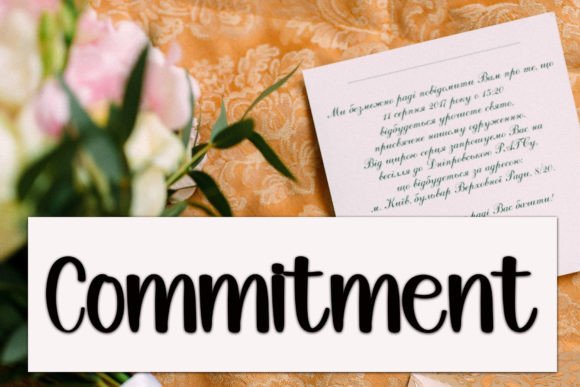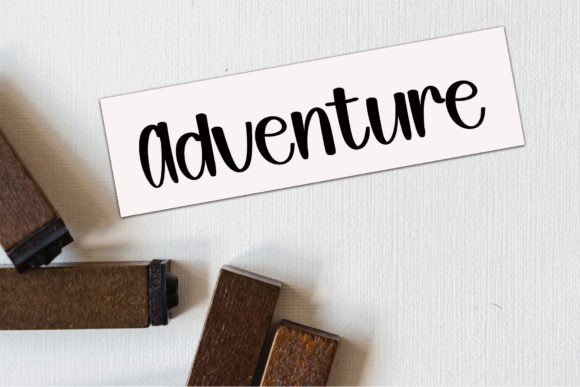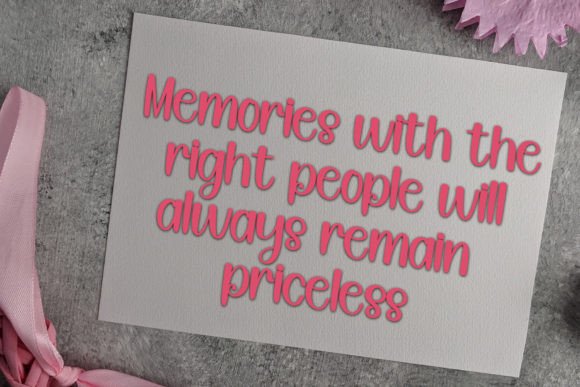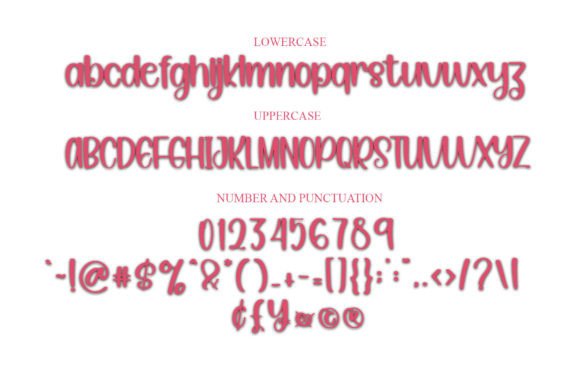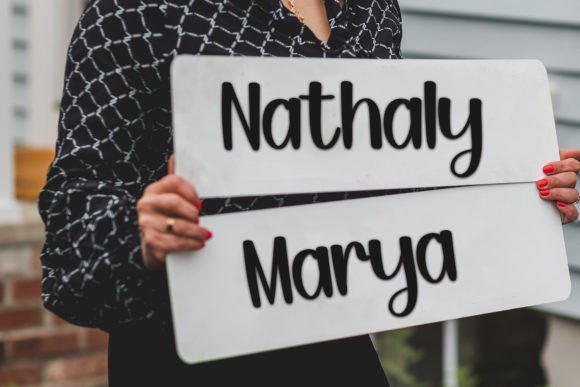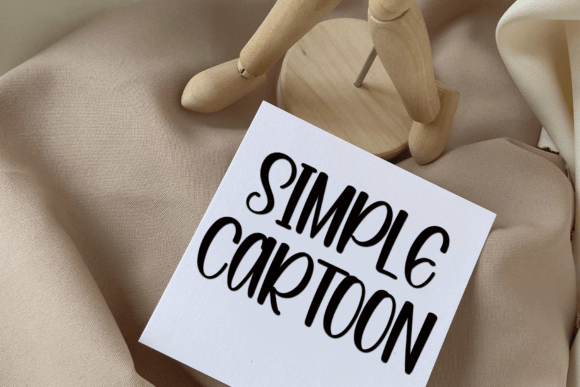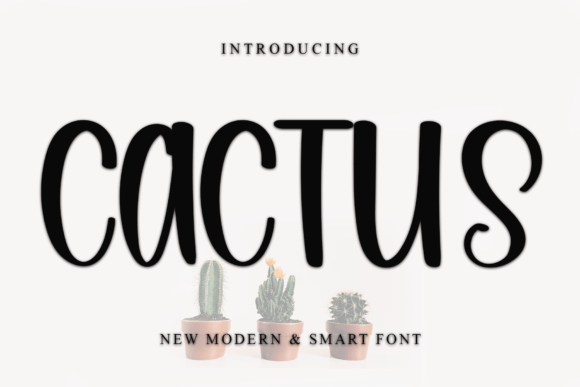
Cactus Font: Add a Touch of Whimsy to Your Designs
Are you looking for a font that can add a dash of personality to your designs? Look no further than Cactus Font, a cute handwritten font with a fun and quirky personality. Its irregular and playful letterforms create a sense of whimsy and individuality, making it perfect for designs that require a touch of uniqueness.
The Charm of Cactus Font
Cactus Font is a charming and personal font that can add a natural, handwritten style to any project. Its irregularities and imperfections give it a human touch, making it perfect for designs that require a personal and relatable feel. Whether you’re working on a branding project, a craft project, or a digital design, Cactus Font is sure to bring a smile to your audience’s face.
What Makes Cactus Font Special?
- Unique and Quirky Personality: Cactus Font has a fun and quirky personality that sets it apart from other fonts. Its irregular letterforms create a sense of whimsy and individuality, making it perfect for designs that require a touch of uniqueness.
- Natural, Handwritten Style: Cactus Font has a natural, handwritten style that adds a charming and personal feel to any project. Its irregularities and imperfections give it a human touch, making it perfect for designs that require a personal and relatable feel.
- Perfect for Crafting and DIY Projects: Cactus Font is perfect for crafters and DIY enthusiasts who want to add a personal touch to their projects. Whether you’re working on a handmade card, a scrapbooking project, or a craft project, Cactus Font is sure to add a touch of whimsy and personality.
How to Use Cactus Font in Your Designs
Cactus Font is a versatile font that can be used in a variety of designs, from digital designs to print designs. Here are a few ways you can use Cactus Font in your designs:
- Branding and Logo Design: Cactus Font can be used to create unique and quirky logos and branding materials. Its irregular letterforms create a sense of whimsy and individuality, making it perfect for brands that want to stand out.
- Digital Designs: Cactus Font can be used in digital designs, such as social media graphics, blog posts, and website designs. Its natural, handwritten style adds a charming and personal feel to any digital design.
- Crafting and DIY Projects: Cactus Font is perfect for crafters and DIY enthusiasts who want to add a personal touch to their projects. Use it to create handmade cards, scrapbooking projects, and other craft projects.
Tips for Pairing Cactus Font with Other Fonts
Pairing Cactus Font with other fonts can create a unique and interesting design. Here are a few tips for pairing Cactus Font with other fonts:
- Pair with a Serif Font: Pairing Cactus Font with a serif font, such as Times New Roman or Georgia, can create a interesting contrast between the irregular letterforms of Cactus Font and the traditional serif font.
- Pair with a Script Font: Pairing Cactus Font with a script font, such as Pacifico or Great Vibes, can create a beautiful and elegant design. The flowing lines of the script font complement the irregular letterforms of Cactus Font.
Cactus Font is a unique and charming font that can add a touch of whimsy and personality to any design. Its irregular and playful letterforms create a sense of individuality, making it perfect for designs that require a touch of uniqueness. Whether you’re a designer, crafter, or DIY enthusiast, Cactus Font is sure to bring a smile to your audience’s face.